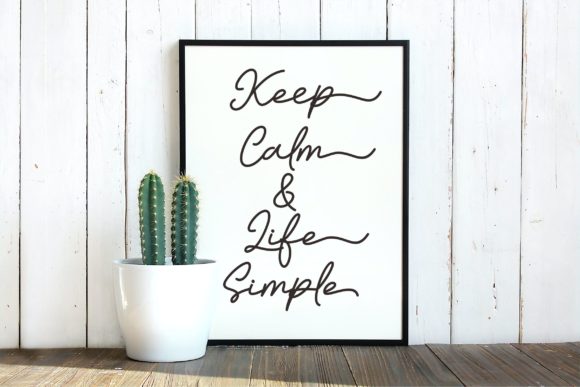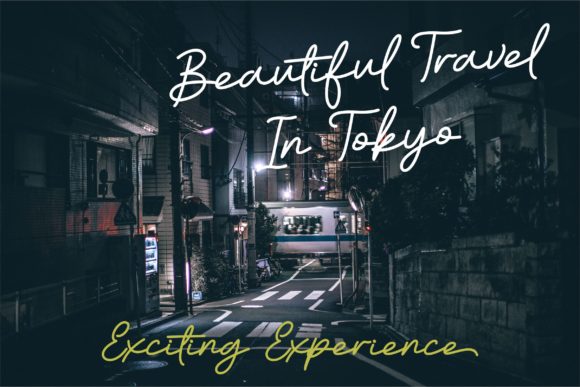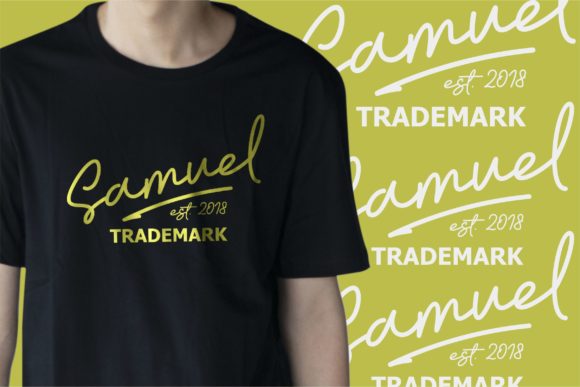
About Yardmore Font
Yardmore feels equally charming and elegant. It looks stunning on wedding invitations, thank you cards, quotes, greeting cards, logos, business cards and every other design which needs a handwritten touch.